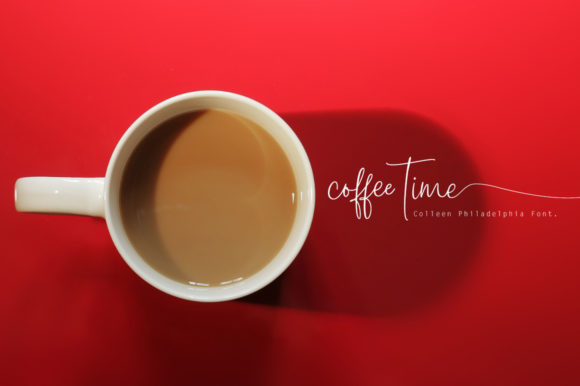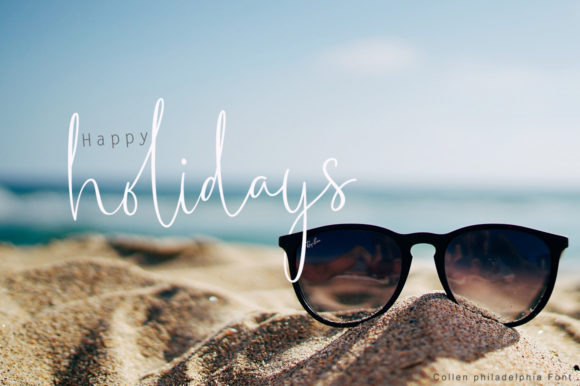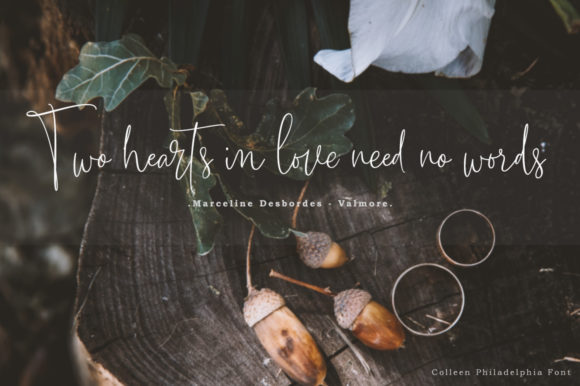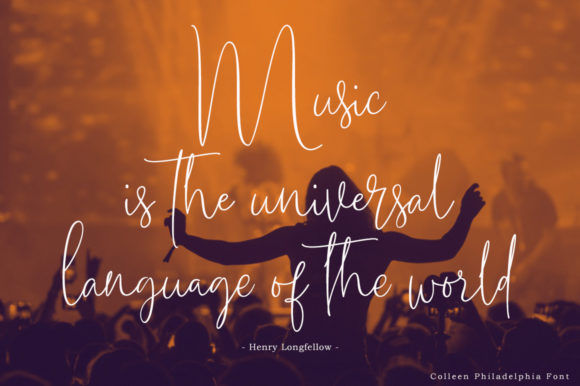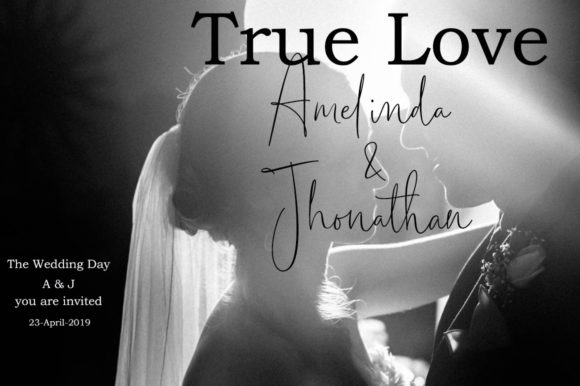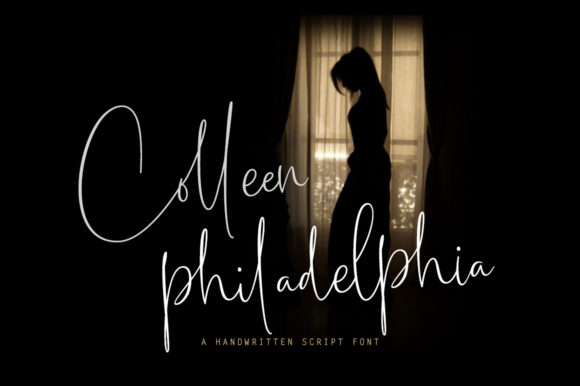
Discover the Charm of Colleen Philadelphia Font: A Handwritten Masterpiece
Are you a designer or crafter looking for a font that adds a touch of elegance and authenticity to your projects? Look no further than the Colleen Philadelphia Font. This stunningly unique handwritten font is sure to capture your heart with its beautiful feel and inspiring charm.
What is Colleen Philadelphia Font?
Colleen Philadelphia is a carefully crafted handwritten font that exudes a sense of sophistication and refinement. Its unique and authentic feel makes it perfect for a wide range of design projects, from wedding invitations and branding materials to digital content and craft patterns.
Key Features of Colleen Philadelphia Font
- Handwritten with love: Each letter has been meticulously handwritten to create a truly one-of-a-kind font that feels personal and relatable.
- Unique character set: The font includes a range of characters, numbers, and punctuation marks, ensuring that you have everything you need to create stunning text-based designs.
- Beautiful feel: The Colleen Philadelphia Font has a distinctively elegant feel that adds a touch of sophistication to any design project.
Inspiration from the City of Brotherly Love
The Colleen Philadelphia Font draws inspiration from the vibrant city of Philadelphia, known for its rich history, stunning architecture, and friendly locals. This font captures the essence of the city, infusing your designs with a sense of charm and character that’s hard to find elsewhere.
Whether you’re a professional designer or a crafter looking to add a personal touch to your projects, the Colleen Philadelphia Font is the perfect choice. Here are just a few ways you can use this amazing font:
- Wedding invitations and stationery: Add a touch of elegance to your wedding designs with this beautiful handwritten font.
- Branding and packaging: Use the Colleen Philadelphia Font to create unique and memorable brand identities that stand out from the crowd.
- Digital content: Add a personal touch to your blog posts, social media graphics, and other digital content with this charming font.
- Craft patterns and tutorials: Use the Colleen Philadelphia Font to create stunning craft patterns, tutorials, and other DIY projects.
Get Inspired by the Authentic Charm of Colleen Philadelphia Font
The Colleen Philadelphia Font is more than just a font – it’s a way to add a touch of personality and charm to your designs. With its unique and authentic feel, this font is sure to inspire you to create something truly special. So why wait? Get your hands on the Colleen Philadelphia Font today and start creating stunning designs that capture the hearts of your audience.
In conclusion, the Colleen Philadelphia Font is a must-have for designers and crafters looking to add a touch of elegance and authenticity to their projects. With its unique character set, beautiful feel, and inspiring charm, this font is sure to become a favorite in your design toolkit. So go ahead, get creative, and let the Colleen Philadelphia Font guide you on your design journey.